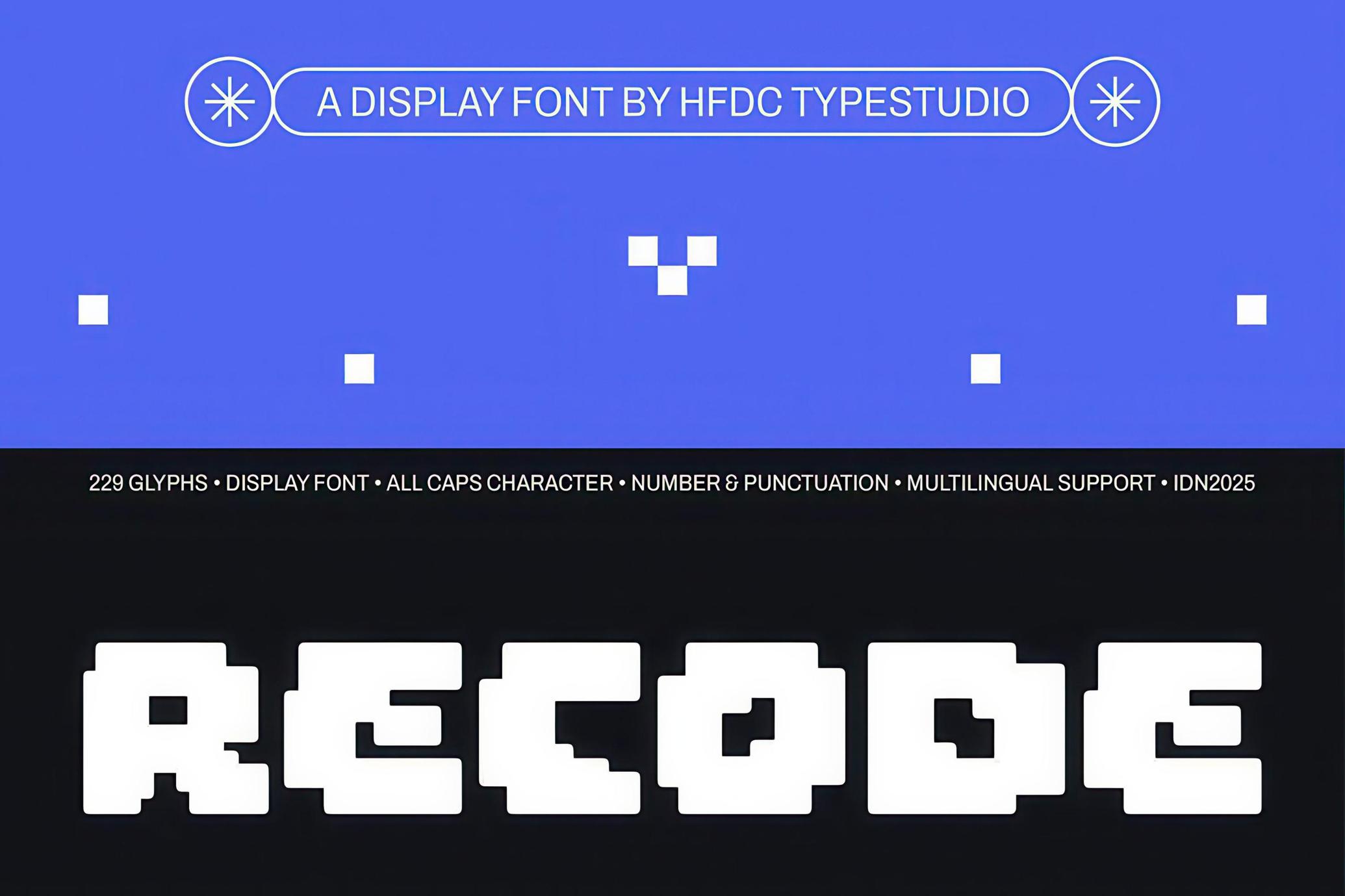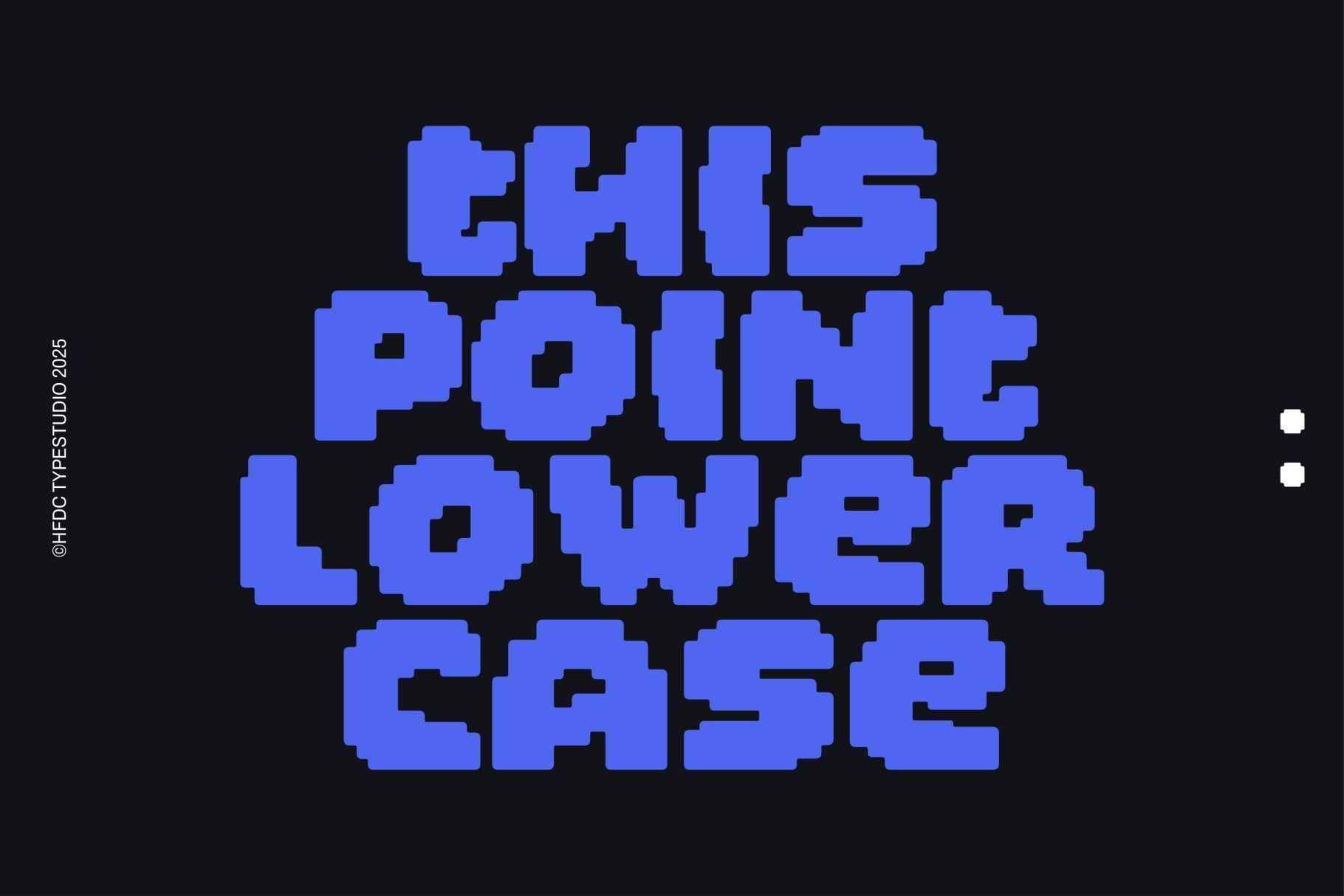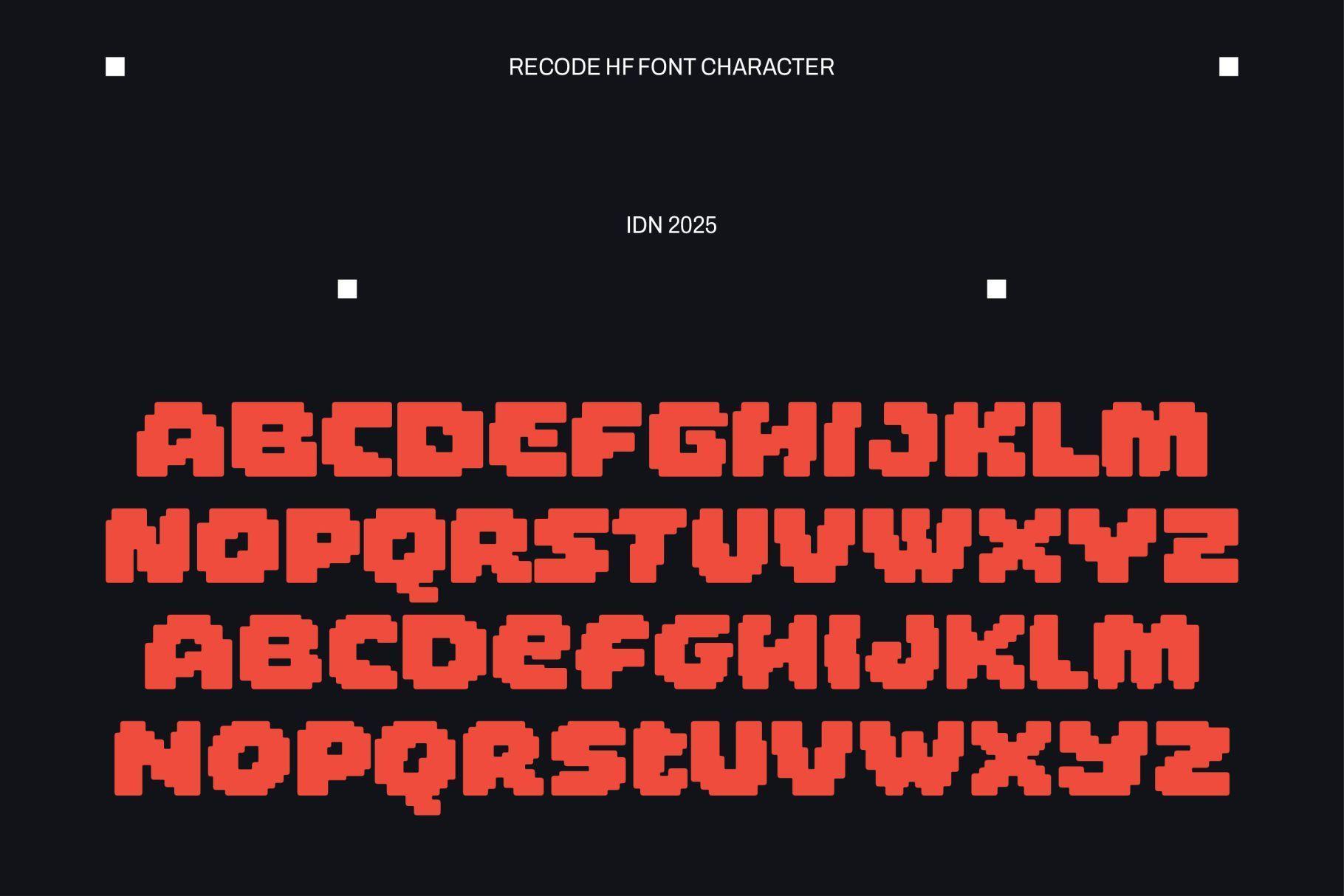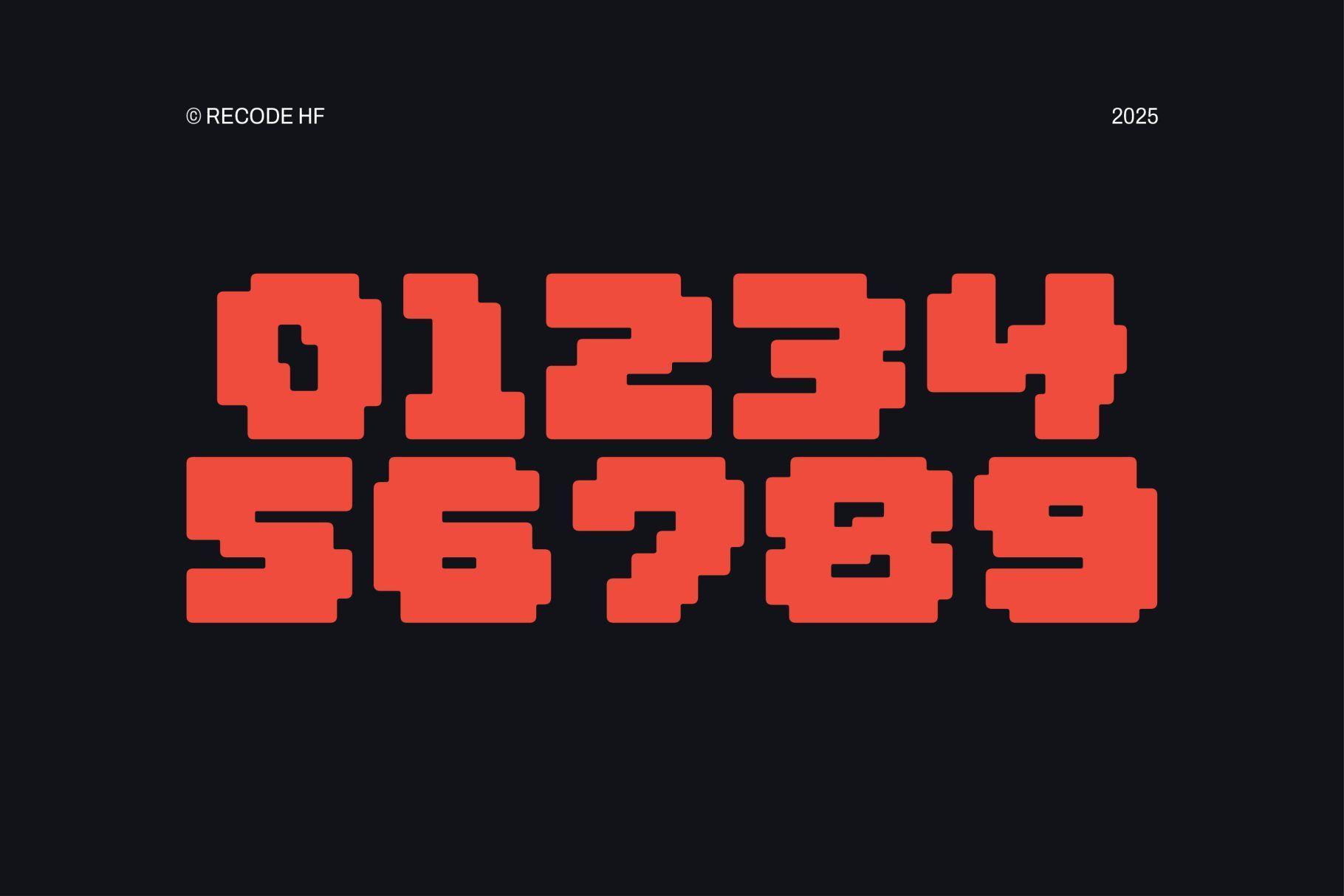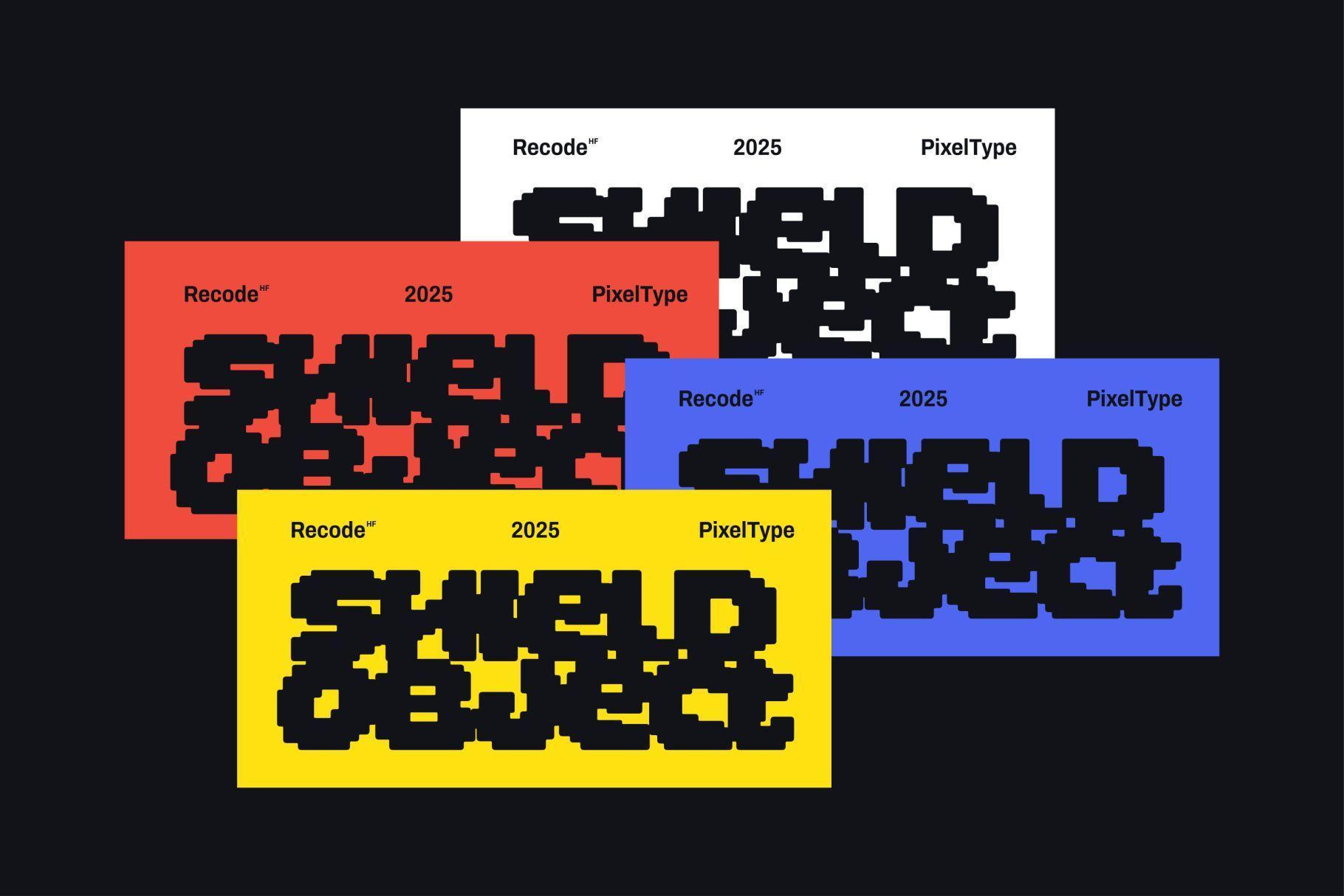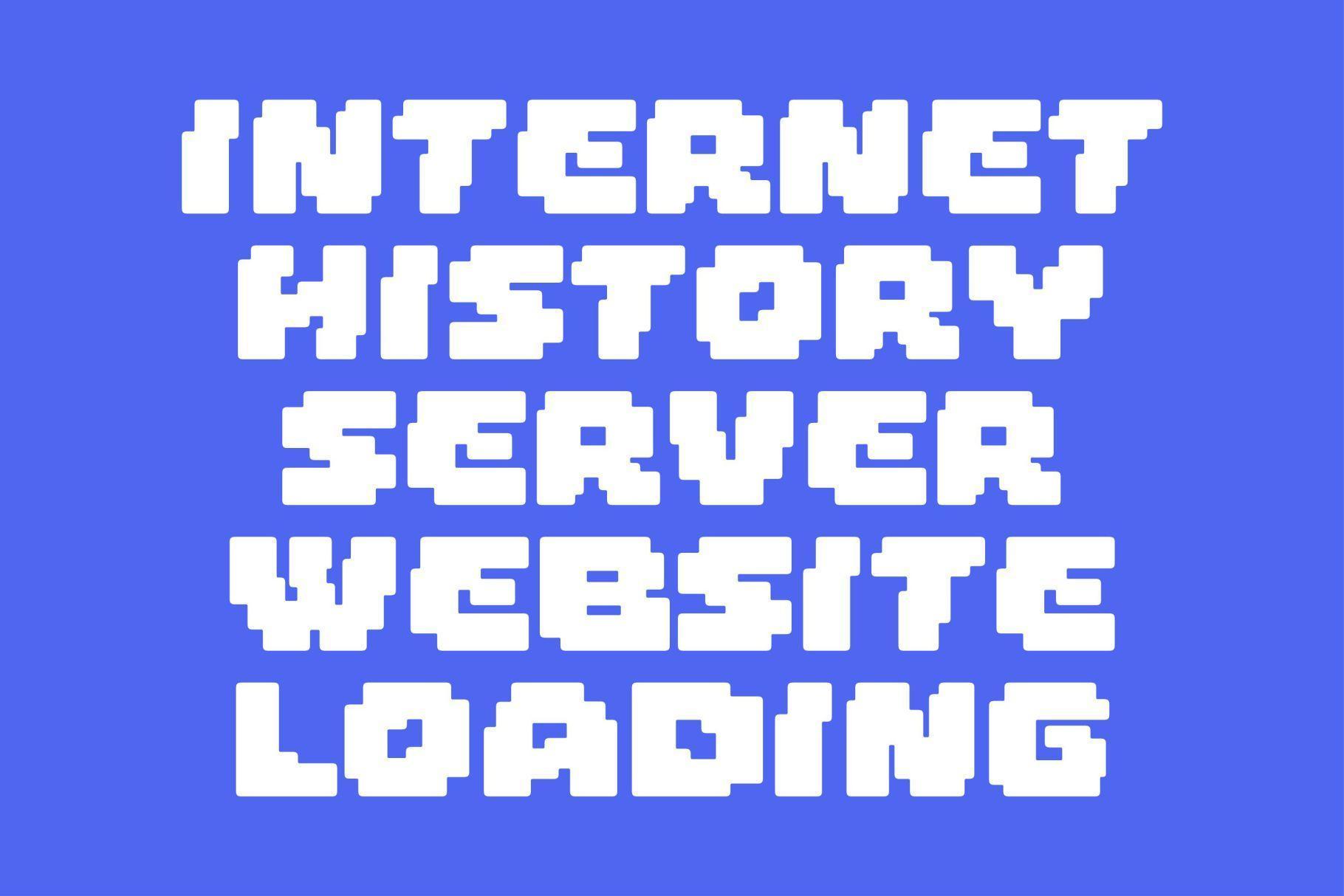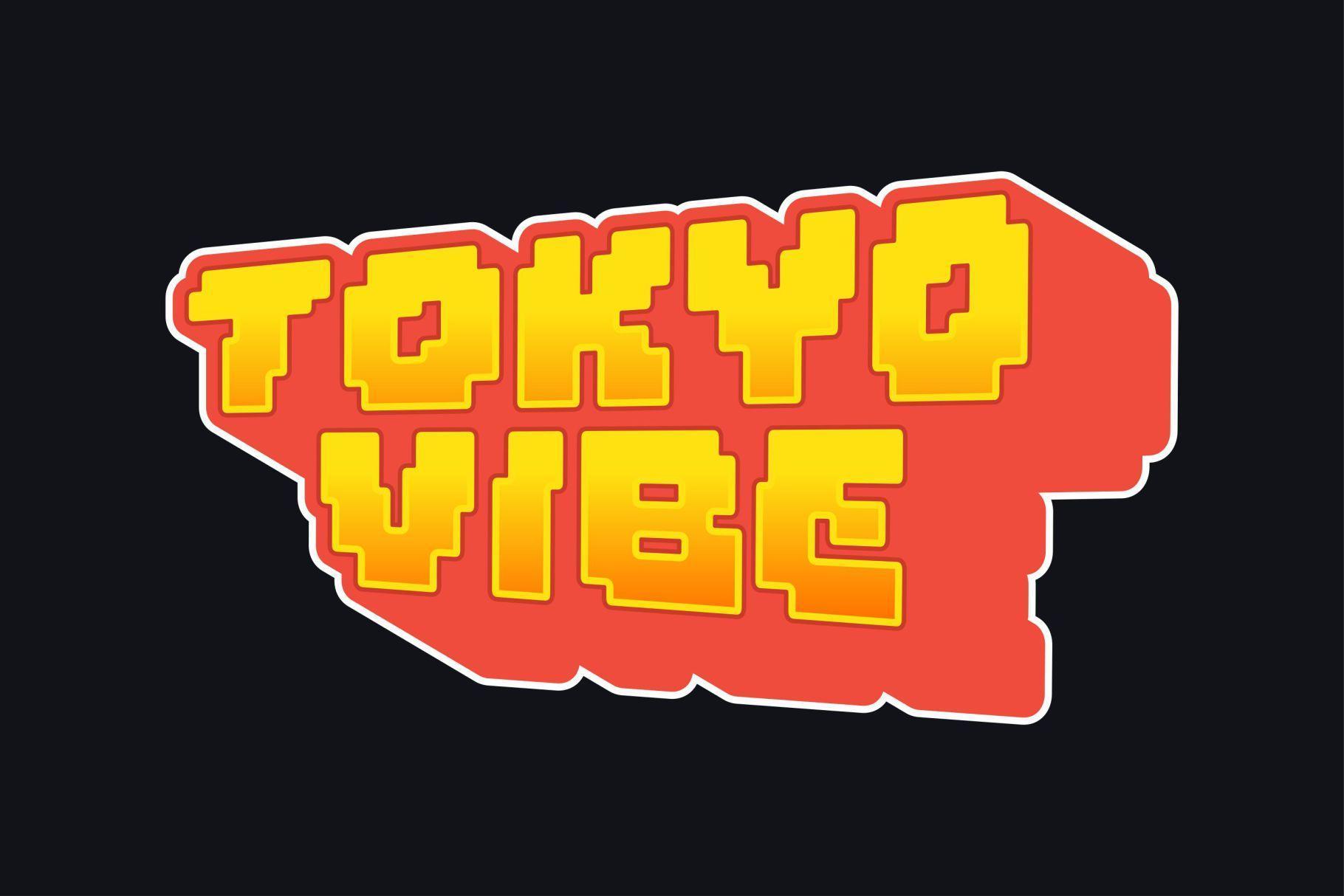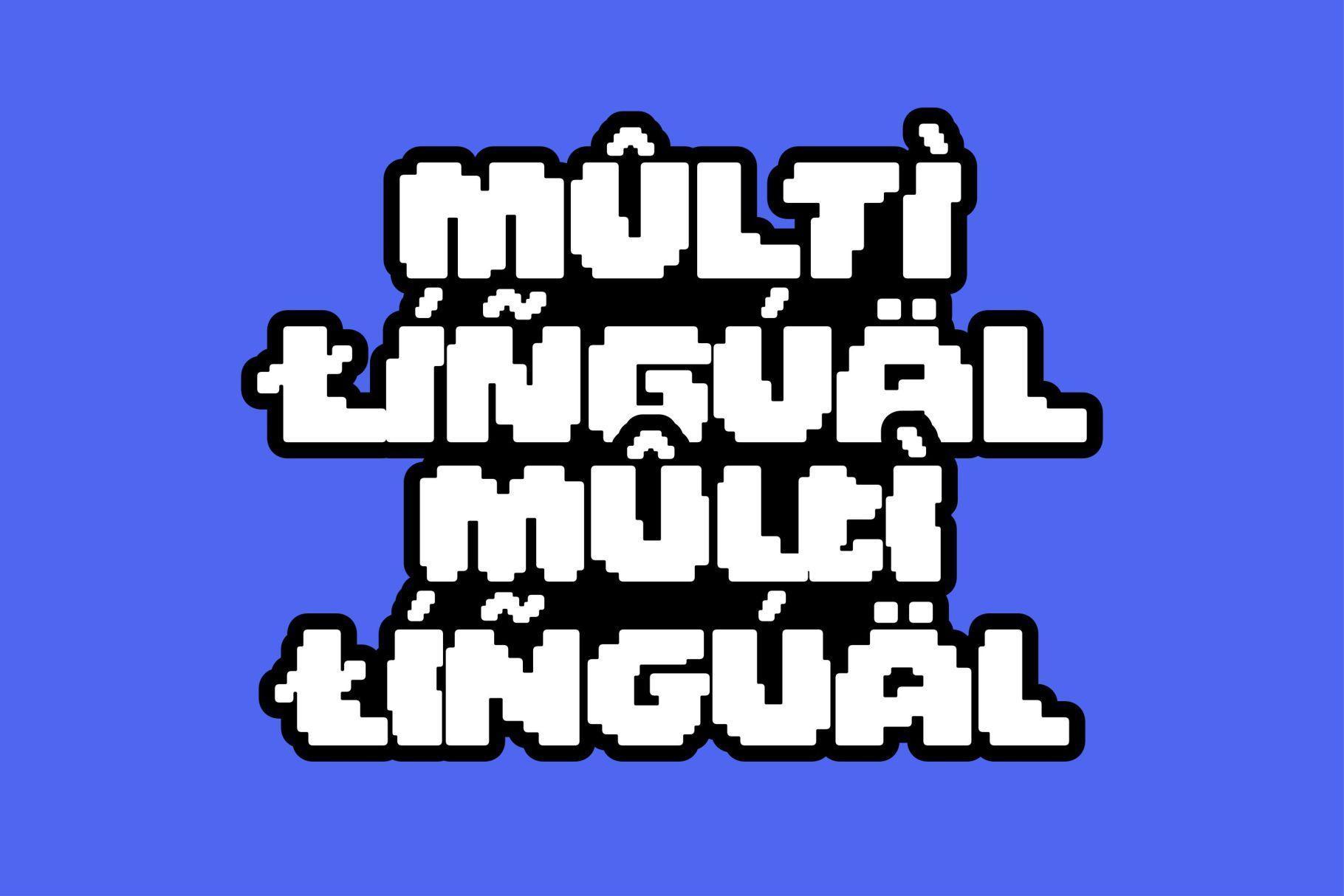
Recode HF Bold Pixel Typeface
Recode HF is a bold pixel-style display font designed for standout visual impact. With its blocky, 8-bit inspired aesthetic , Recode HF brings retro tech energy to your creative projects. It features all caps characters with unique shapes for both uppercase and lowercase sets — perfect for modern pixel art, gaming themes, glitch visuals, and digital-era branding.
This font includes 229 glyphs, supports numbers and punctuation, and comes with multilingual support, making it versatile and global-ready. Whether you’re designing posters, interfaces, or logos, Recode HF adds a powerful and nostalgic punch to your typography arsenal.
Recode HF Features:
• Pixel Bold Display Font
• All-Caps Format with Distinct Upper/Lowercase Styles
• Perfect for Retro, Gaming, Tech, and Glitch Aesthetics